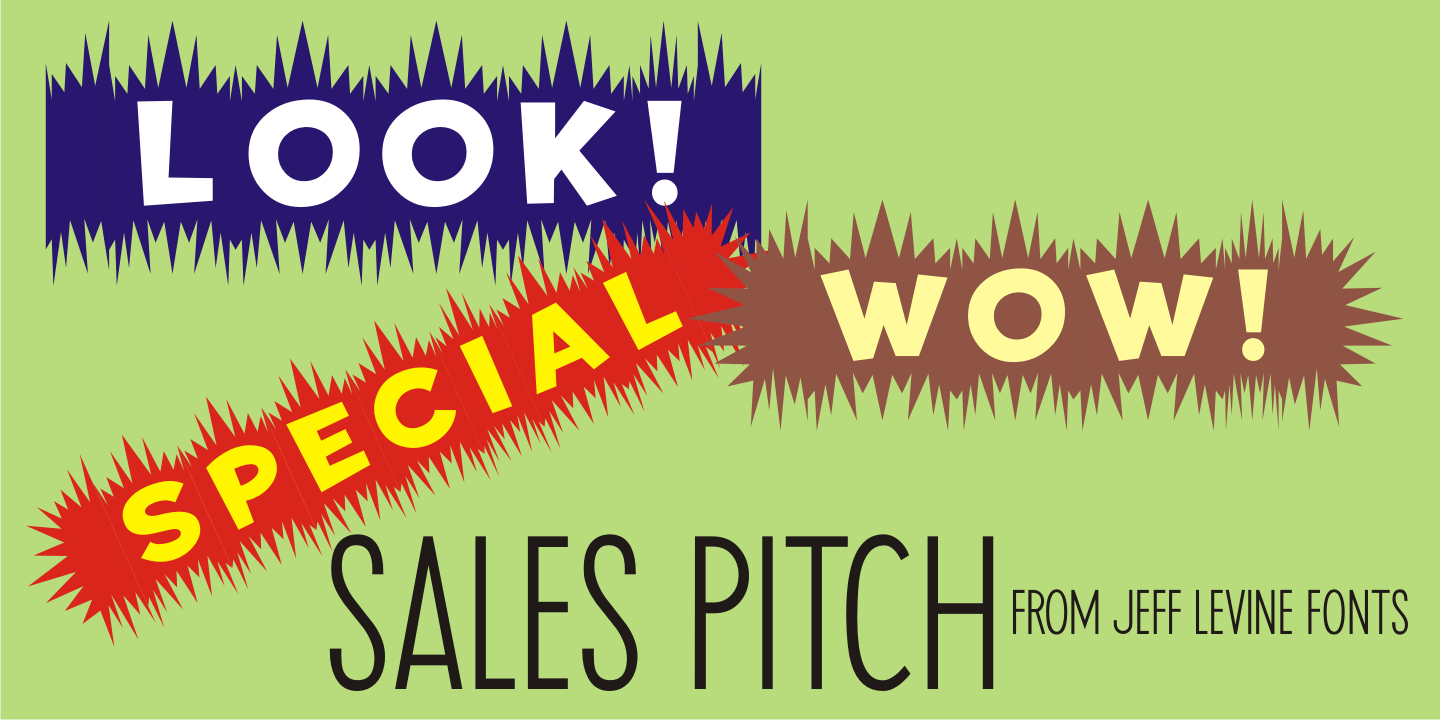
Sales Pitch
Have you ever wanted to set a headline within a burst, but found the drawing of all of those angles was a bit too tedious? Sales Pitch JNL solves that problem by setting letters, numbers and punctuation inside individual sections which, when typed out, generates an extended burst pattern.
For a flat sided pair of end caps, use the left or right bracket keys. For burst ends, use the left or right brace keys. A blank space is located on the equal sign keystroke, and a wider blank space is on the plus sign.
Keep in mind the optical illusion in some program that shows line gaps between characters on the screen. All characters have 'zero' sidebar settings, and are flush with each other.
Sales Pitch JNL contains the basic A-Z and 0-9 characters as well as numerous punctuation. For a companion font with a more complete character set, use Prankster JNL, the same type design, but without the burst pattern.